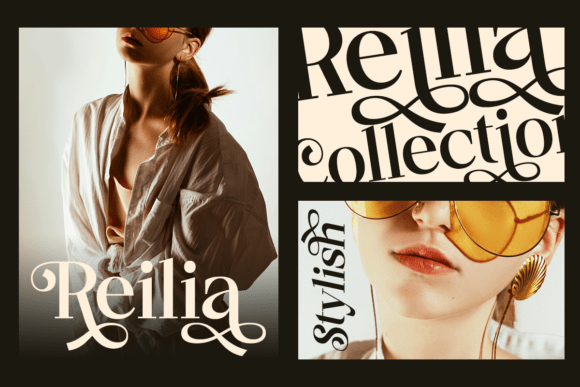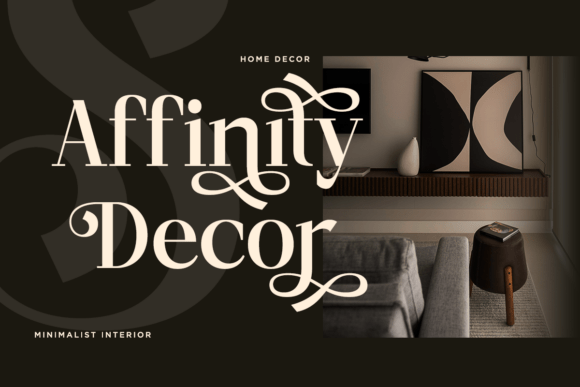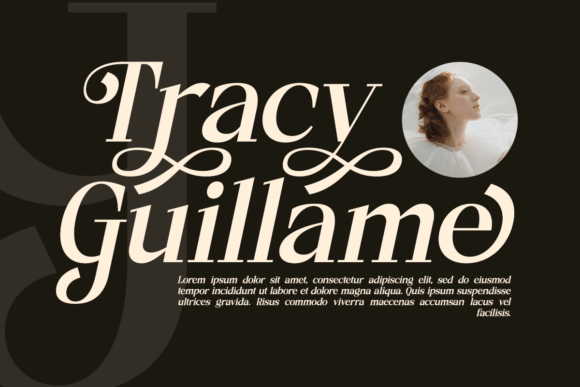
Introduction to Maloine Font
Maoline is a timeless display serif typeface that combines classic refinement with graceful modern touches.
Crafted to echo the artistry of vintage lettering, each character features smooth curves, subtle swashes, and striking contrast — ideal for brands seeking beauty, sophistication, and personality Drawing inspiration from historic typography and the romantic feel of botanical interiors, Maoline brings a rich vintage atmosphere to any project.